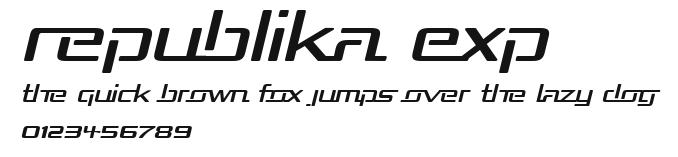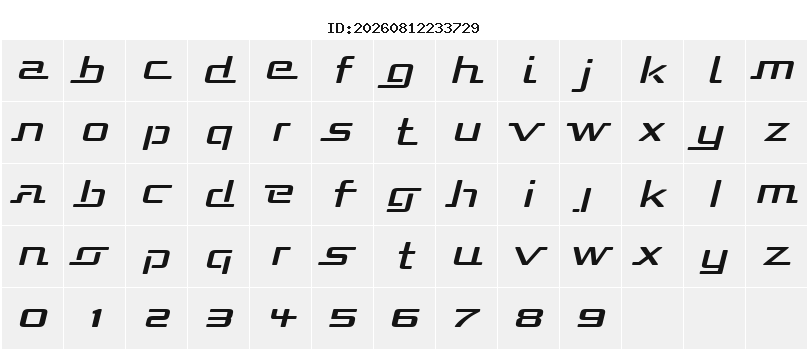
Republika Exp Preview
• Font Name: Republika Exp
• Font ID: Apostrophe: Republika Exp Italic: 2000
• Full Font Name: Republika Exp Italic
• Version: Version 1.0; 2000;
• PostScript Name: RepublikaExp-Italic
• Designer: Apostrophe
About Republika Exp.ttf
Republika Exp.ttf is a modern, elegant sans-serif font designed for ultimate readability and visual harmony. Perfect for branding, headlines, web design, and print materials.